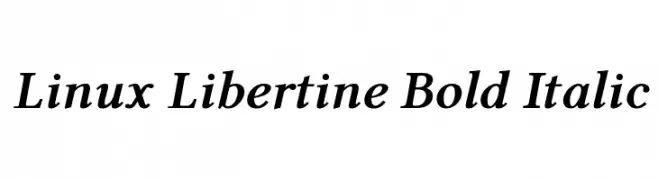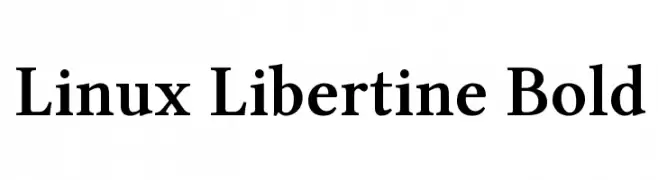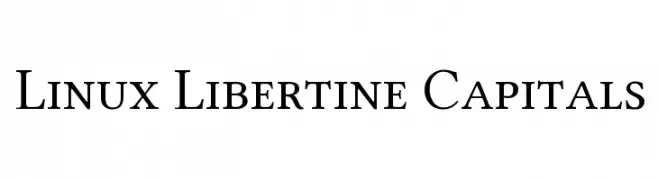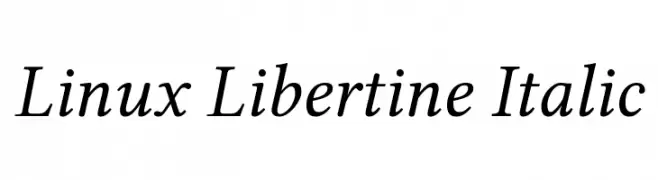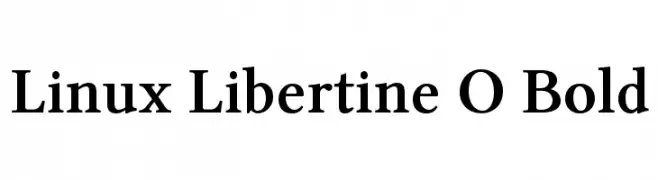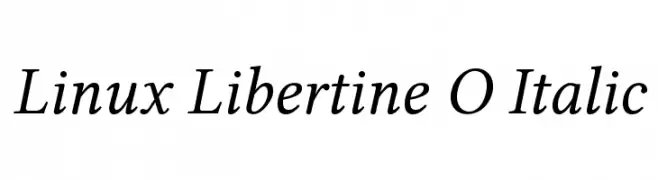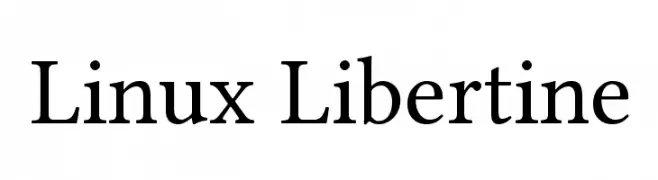
Linux Biolinum Font
A clean and elegant font with refined letterforms and balanced spacing.
Linux Libertine O Font
A classic serif font with elegant proportions and moderate contrast.
Linux Libertine Font
A classic serif font with elegant strokes and balanced proportions.
Linux Biolinum O Font
A clean and elegant serif font with balanced proportions and smooth curves.
Linux Libertine Capitals Font
A classic serif font with elegant strokes and refined serifs.
Linux Biolinum Bold Font
A modern serif font with bold, elegant characters and slight stroke contrast.
Linux Biolinum O Bold Font
A modern serif font with bold, elegant characters and smooth curves.
Linux Libertine O Capitals Font
A classic serif font with elegant curves and moderate contrast.
Linux Biolinum Capitals Font
A classic serif font with elegant lines and balanced proportions.
Linux Biolinum Capitals Bold Font
A bold serif font with a classic and elegant style.
Linux Libertine Bold Font
A bold, classic serif font with strong strokes and elegant serifs.
Linux Libertine O Bold Font
A bold, classic serif font with strong, elegant serifs and excellent readability.
Linux Biolinum Keyboard Font
A monospaced font with characters enclosed in rounded rectangles, ideal for digital interfaces.
Linux Libertine Capitals Bold Font
A bold, classic serif font with strong, authoritative strokes.
Linux Libertine O Italic Font
A classic serif italic font with elegant proportions and refined serifs.
Linux Libertine Italic Font
An elegant italic serif font with medium contrast and classic styling.
Linux Libertine Display Font
A classic serif typeface with elegant proportions and high readability.
Linux Libertine Display Capitals Font
A classic serif font with elegant strokes and balanced structure.
Linux Libertine Bold Italic Font
A bold, italic serif font with elegant curves and moderate contrast.
Linux Libertine Slanted Semibold Font
A classic, slanted serif font with elegant proportions and readability.